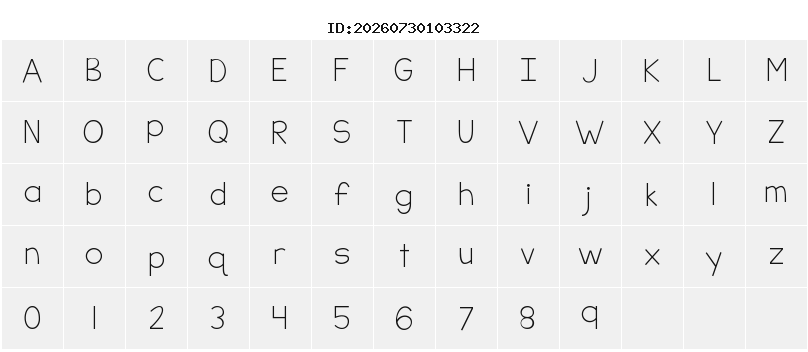
• Font Name: KG Part of Me
• Font ID: KimberlyGeswein: KG Part of Me: 2012
• Full Font Name: KG Part of Me
• Version: Version 1.000 2012 initial release
• PostScript Name: KGPartofMe
• Character Count: 386
• Designer: Kimberly Geswein
• Manufacturer: Kimberly Geswein
About KG Part of Me.ttf
KG Part of Me.ttf is a modern, elegant sans-serif font designed for ultimate readability and visual harmony. Perfect for branding, headlines, web design, and print materials.